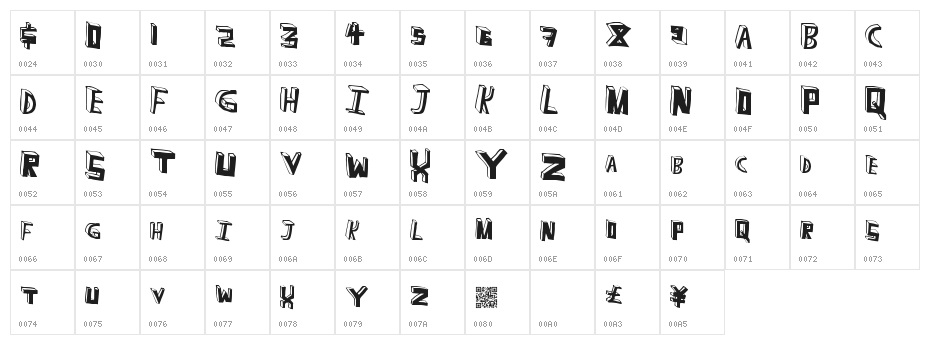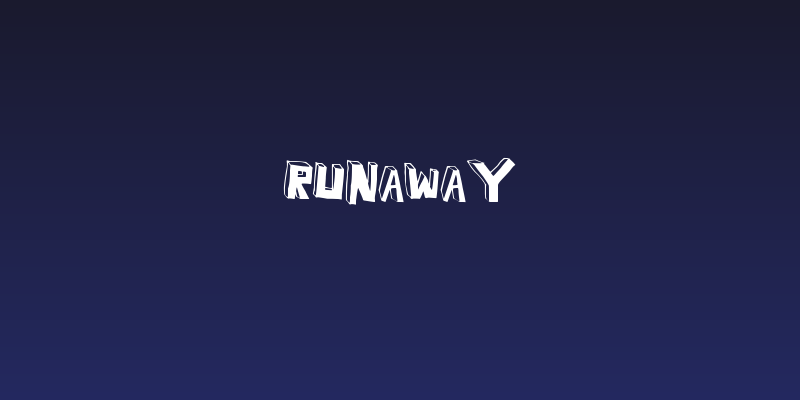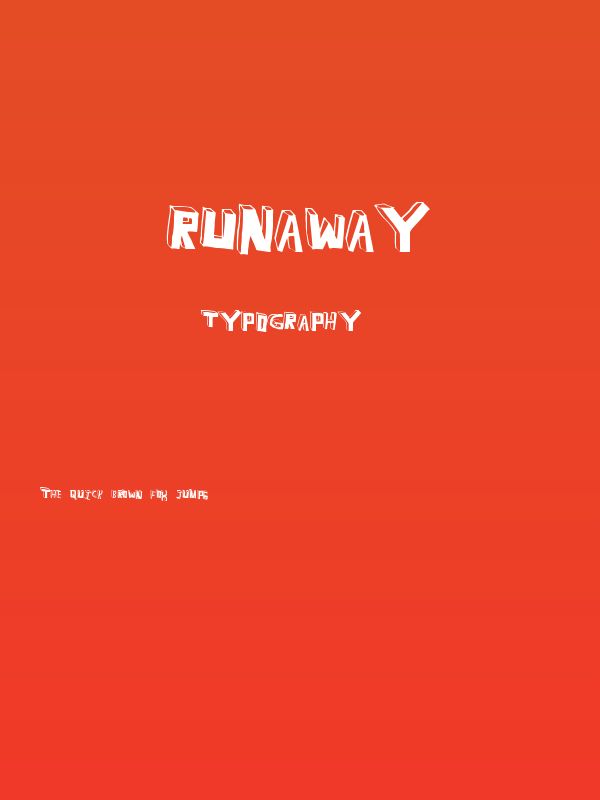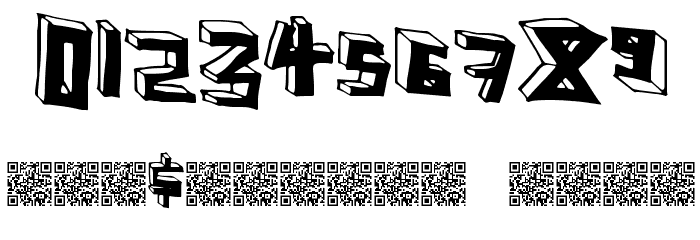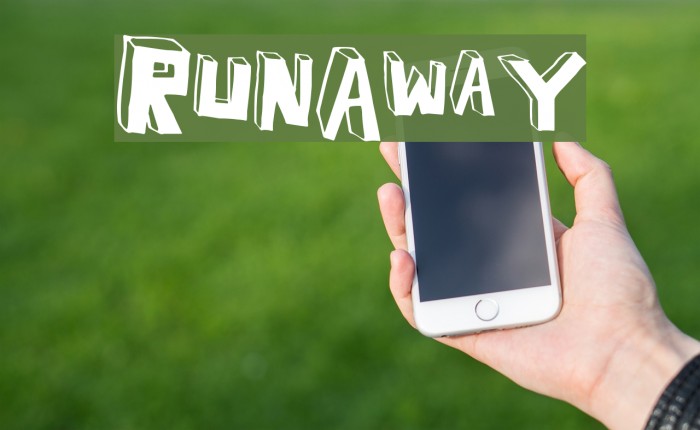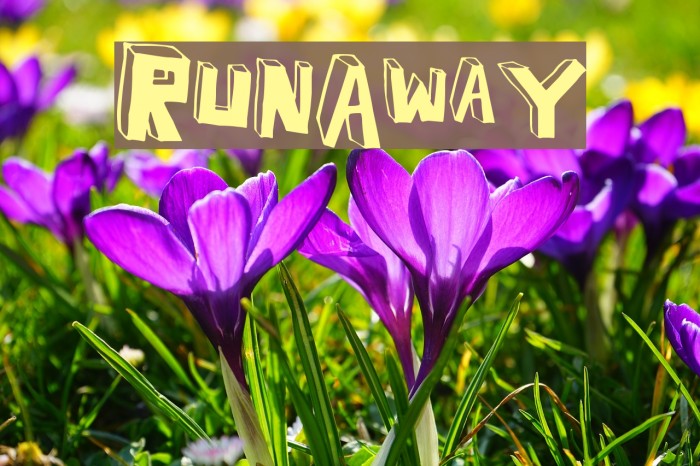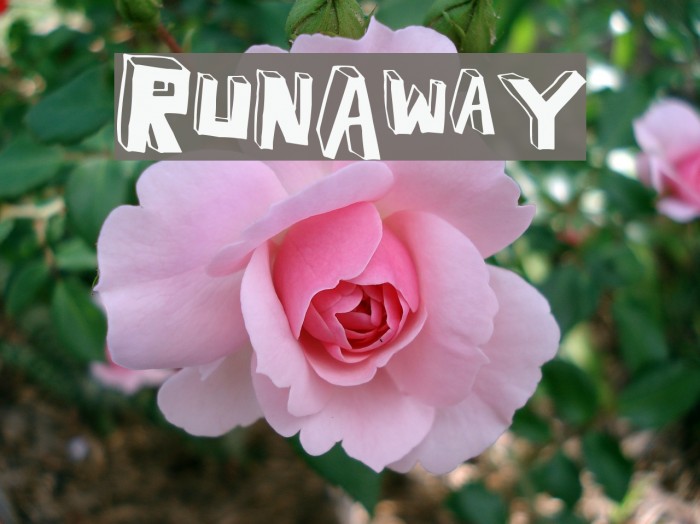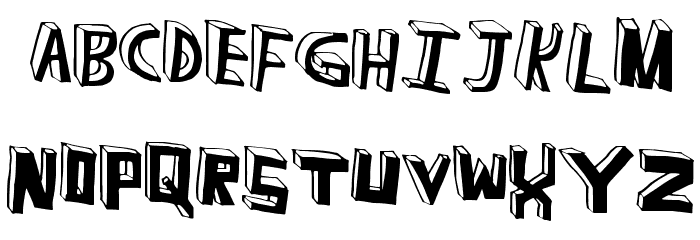
RunAway Font
RunAway Description
This font features a bold, three-dimensional style with a playful and dynamic appearance. Each character is designed with a shadow effect, giving it a sense of depth and movement. The letters are slightly tilted, adding to the whimsical and energetic feel. The font is highly decorative, making it ideal for eye-catching designs. The uppercase and lowercase letters maintain a consistent style, with numbers and special characters following the same design principles. The overall look is modern and unique, perfect for projects that require a standout typeface.
| Proposed Projects | Ideal for posters, headlines, logos, and any design needing a bold, attention-grabbing font. |